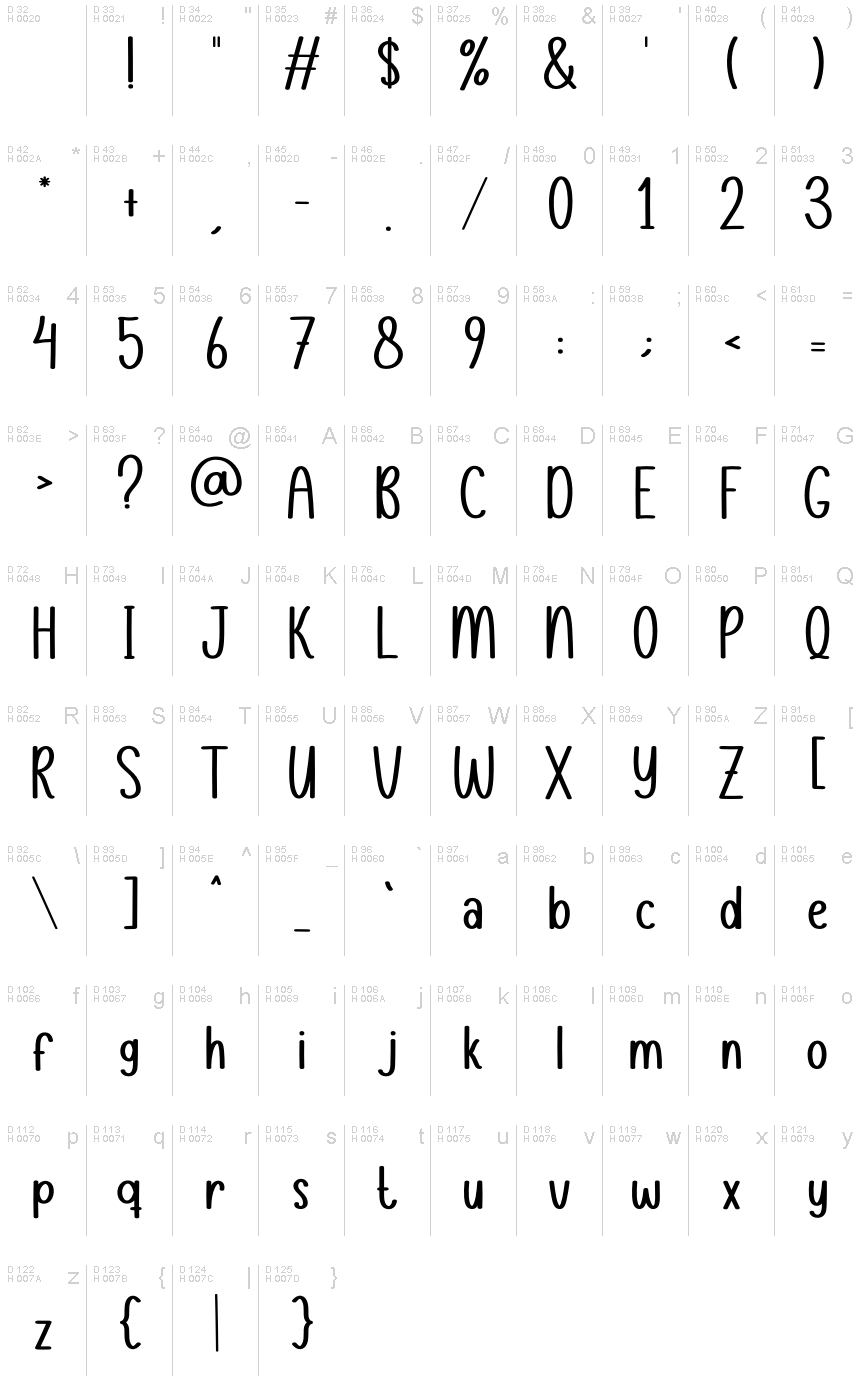
Safana
Safana, crafted by Andi Moz, is a whimsical handwritten font that exudes a sweet and friendly charm. Its delightful playfulness is effortlessly conveyed through its condensed structure and the subtle quirks in each letterform.
Perfect for adding a touch of fun to your designs, Safana brings warmth and personality to wedding invitations, cards, or any project seeking an engaging and lighthearted vibe. This font's distinctiveness lies in its balance between casual elegance and approachable friendliness, making it versatile for both personal and professional use. Let Safana elevate your creations with its unique, heartfelt character!